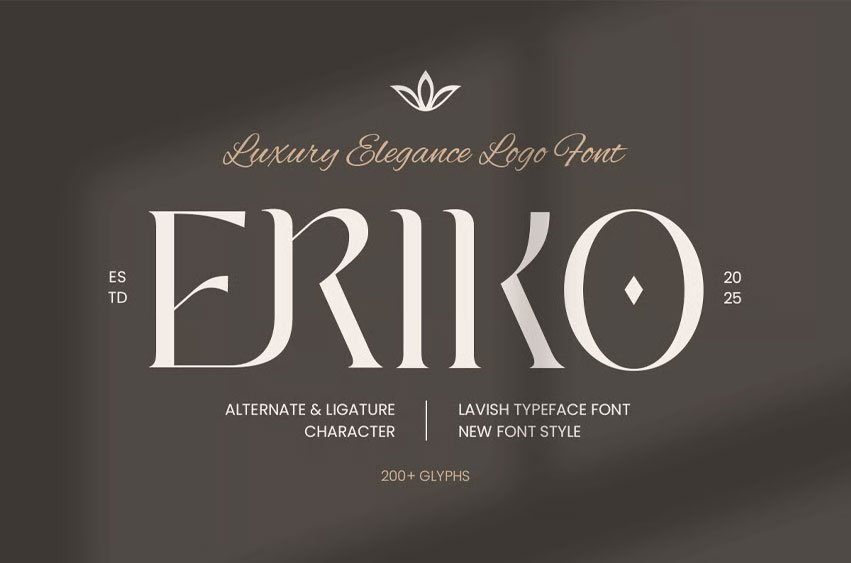
Eriko Font is a modern luxury logo font designed for premium branding, logos, and elegant creative projects. Its sleek, refined letterforms provide a sophisticated, high-end aesthetic that enhances any design.
Inspired by contemporary elegance and minimalist luxury, ERIKO is ideal for fashion, lifestyle, and luxury brands in both print and digital media.
ERIKO – Modern Luxury Logo Font Features
- Elegant and modern character set
- Perfect for branding, logos, and premium designs
- Uppercase, lowercase, numerals, and punctuation included
- OpenType features for extra versatility